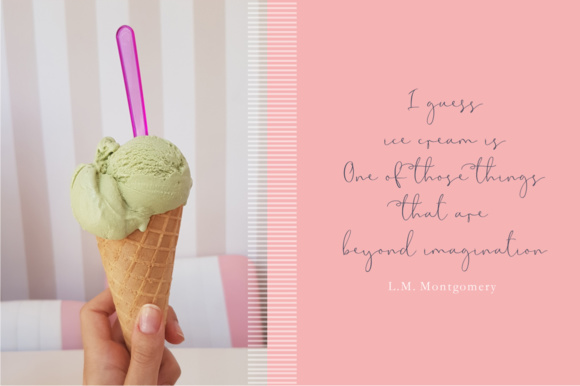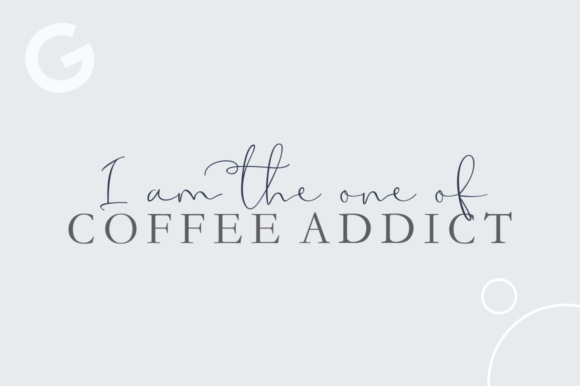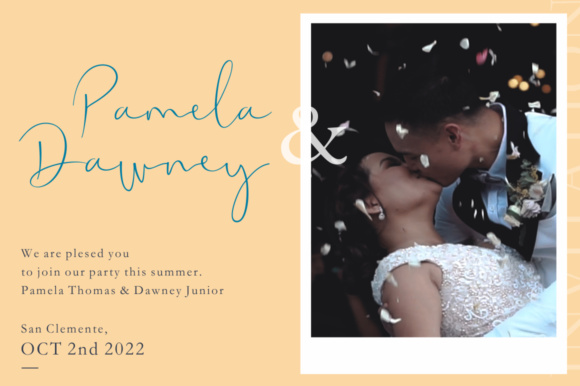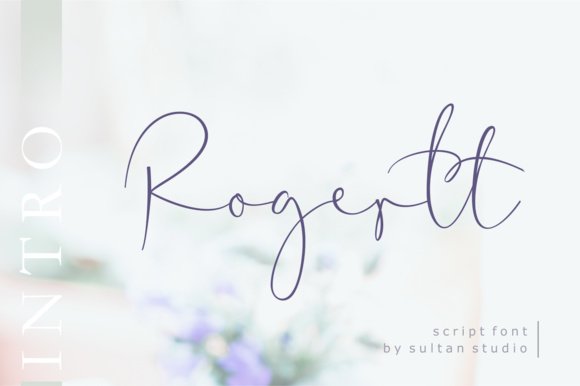
Introduction to Rogertt Font
The Rogertt is a romantic and modern calligraphy font.
It’s ready to give your design project a fresh and fabulous style .